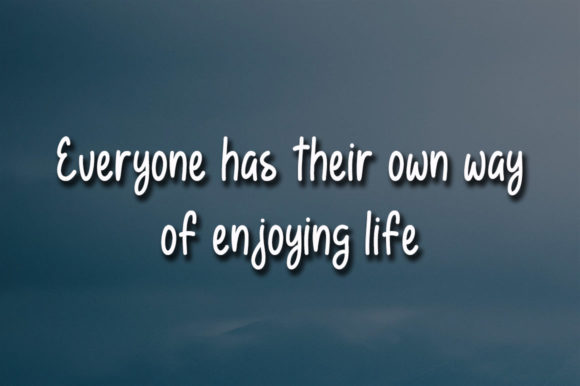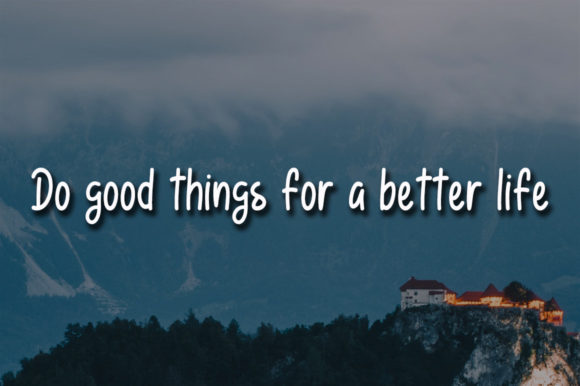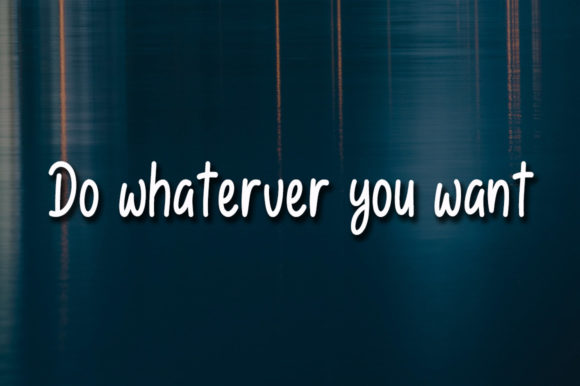
Introduction to Hani Font
Hani is a simple handwritten font.
This adaptable font will look great on a variety of design ideas It will add a fun and friendly touch to each of your projects.
Key Features of Hani Font
Why Choose Hani Font?
Hani Font offers exceptional quality and versatility, making it a valuable addition to your design toolkit. Whether you’re creating for personal projects or commercial use, Hani Font delivers professional results.